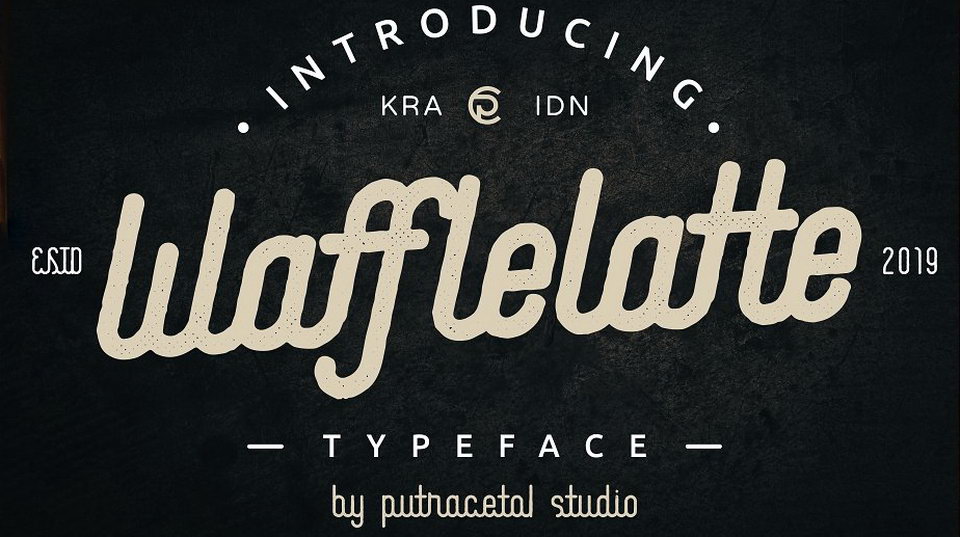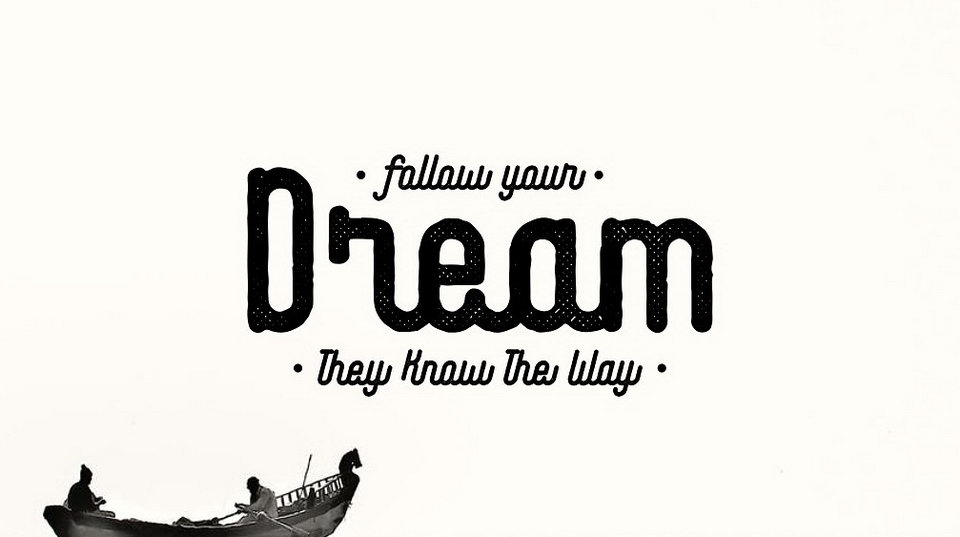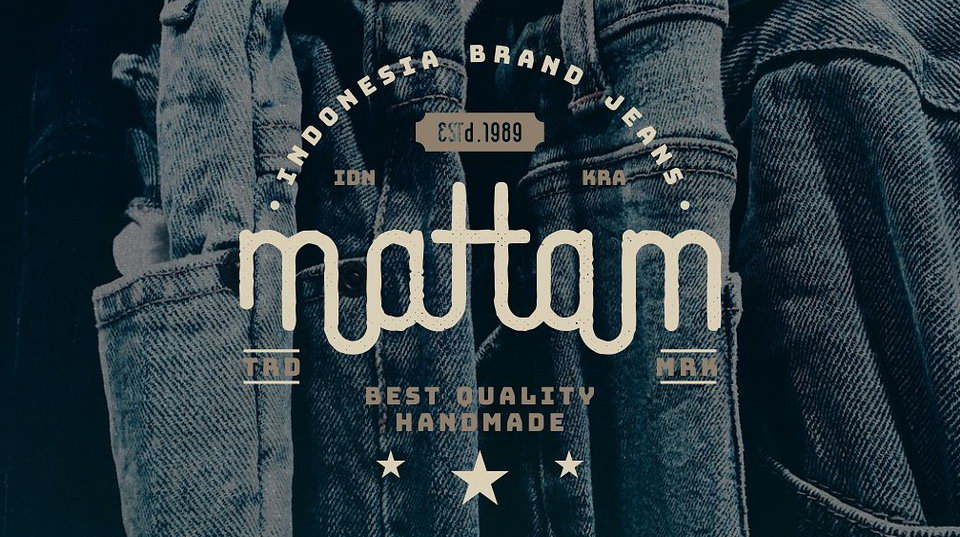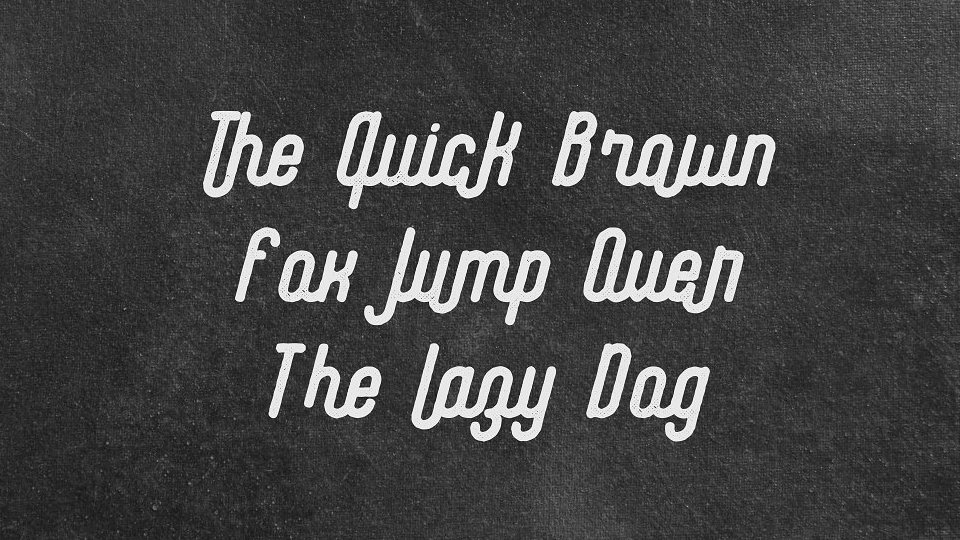
Waffle Latte is a beautiful monoline script typeface. It comes with 2 weights (regular and bold) and 8 styles, also contains ligatures and alternate.
Waffle Latte font is great for making an awesome logo, branding, letterhead, invitations,quote, print, card clothing brand, vintage looks,and so much more!